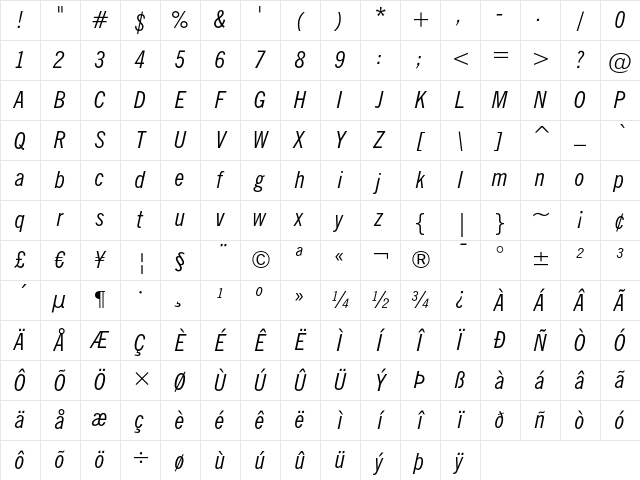
News Gothic Condensed Italic
Style: Condensed Italic
News Gothic Family
News Gothic Condensed Italic
Complete News Gothic Condensed Italic glyph index. Displaying only characters natively supported by News Gothic Condensed Italic font.
Design Context for News Gothic
News Gothic takes a clean, functional approach - its unadorned letterforms prioritise legibility and work reliably across screen and print environments. The slanted form adds forward momentum and visual energy. Its narrow stance lets it pack a punch even in space-constrained designs.
Font Pairing: Works well alongside a characterful serif or display font that can carry the expressive load while News Gothic handles the functional copy.
Pro Tip: Use News Gothic tightly set in headlines and banners - its condensed proportions make it ideal for maximum impact in minimum horizontal space.